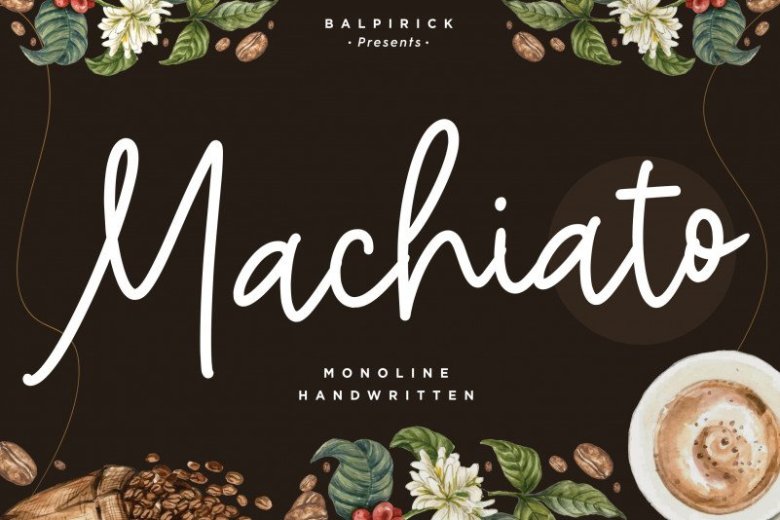
Machiato Monoline Handwritten Font
Machiato is a handwritten monoline script beautiful font, perfect for adding some romance and charm to your designs. This script functions most strongly as a display or headline font.
Suitable for logo, logotype, branding,wedding, fashion, label, book cover, t-shirt, instagram post, and other also this font is amazing for different project ex: photography, watermark, quotes, blog header, poster, wedding, branding, logo, fashion, apparel, letter, invitation, stationery, etc.